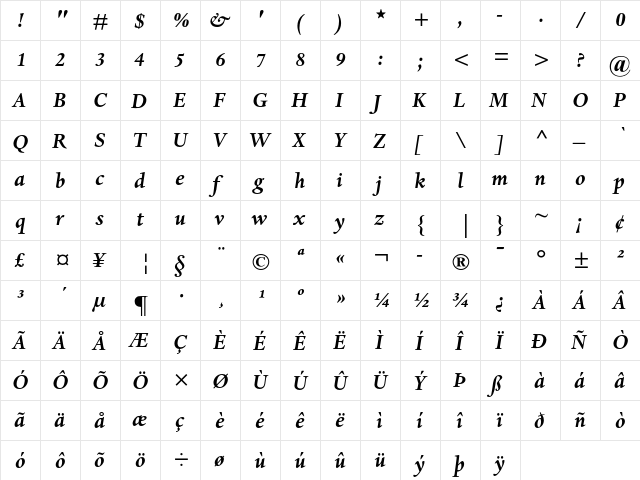
Dante MT Bold Italic
Design Context for Dante MT Typeface
Dante MT takes a measured approach to typography — its balanced proportions and neutral character make it a reliable workhorse for both digital and print work. Its italic angle brings a sense of urgency and motion to the letterforms. Its bold stroke weight gives it real presence on the page.
Pro Tip: Use Dante MT for emphasis, pull quotes, and subheadings where its slanted energy can add rhythm to the layout.